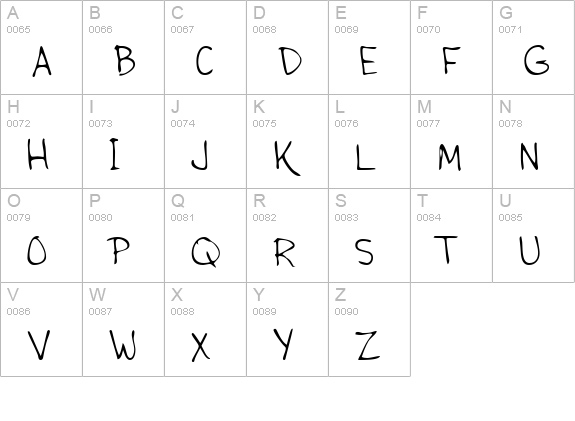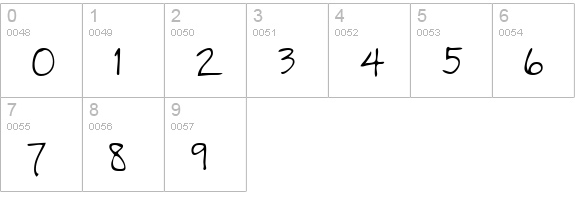
MarionsHand Regular Font Details
MarionsHand Regular is the standard, neutral variant in the MarionsHand typeface family \xE2\x80\x94 well suited to general body text, paragraphs, and standard typographic work.
MarionsHand Regular font is a delightful and charming typeface that captures the essence of handwritten script with a touch of elegance. Its flowing and graceful strokes bring a sense of whimsy and creativity to any project. Whether used for invitations, greeting cards, or branding materials, this font is sure to make a lasting impression. What makes MarionsHand Regular font even more appealing is that it is free! Yes, you read that right. This incredible font is freely available to download at FontsMarket.com. You can now add a touch of sophistication and beauty to your designs without any cost. With its versatility and legibility, MarionsHand Regular font is suitable for a wide range of applications. Its carefully crafted letterforms ensure readability while maintaining a unique and personal touch. Whether you're designing a logo, creating a poster, or crafting a website, this font will effortlessly elevate your design to the next level. The attention to detail in MarionsHand Regular font is truly remarkable. Each character is hand-drawn with precision and care, resulting in a harmonious balance between elegance and playfulness. The connecting strokes and expressive curves give it a natural and organic feel, making it a perfect choice for projects that require a personal and human touch. So why wait? Discover the beauty of MarionsHand Regular font today and let your creativity soar. Download this incredible font for free at FontsMarket.com and unlock a world of possibilities. With MarionsHand Regular font, you'll be able to effortlessly create stunning designs that leave a lasting impression.